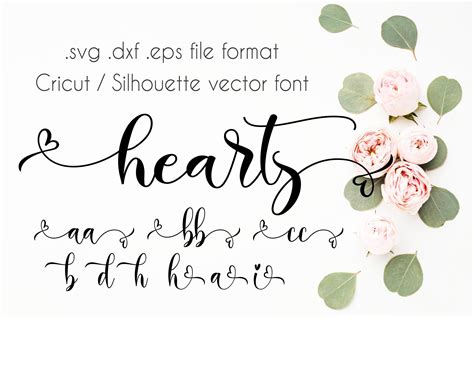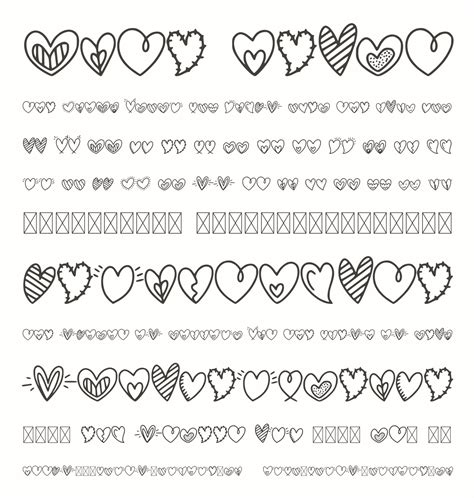
In the digital age, where visual appeal is as important as functionality, the use of cute heart font has become increasingly popular. These fonts are not just about aesthetics; they convey emotions, add a personal touch, and make content more engaging. Whether you're designing a greeting card, creating social media posts, or developing a website, incorporating a cute heart font can elevate your project to new heights.
Understanding Cute Heart Fonts
Cute heart fonts are a type of decorative font that features heart-shaped characters or elements. These fonts are often used to express love, affection, and warmth. They come in various styles, from playful and whimsical to elegant and sophisticated. Understanding the different types of cute heart fonts can help you choose the right one for your project.
Types of Cute Heart Fonts
Cute heart fonts can be categorized into several types based on their design and usage:
- Playful and Whimsical: These fonts are characterized by their lighthearted and fun design. They often feature rounded edges and bright colors, making them perfect for children's projects or casual events.
- Elegant and Sophisticated: These fonts have a more refined and polished look. They are often used for formal occasions like weddings or anniversaries.
- Handwritten: These fonts mimic the look of handwriting, adding a personal and intimate touch to your projects.
- Bold and Eye-Catching: These fonts are designed to stand out. They are often used for headlines or important messages where you want to grab attention.
Popular Cute Heart Fonts
Here are some popular cute heart fonts that you can consider for your next project:
| Font Name | Description | Best For |
|---|---|---|
| Love Story | A playful and whimsical font with heart-shaped characters. | Children's projects, casual events |
| Sweetheart | An elegant and sophisticated font with a romantic feel. | Weddings, anniversaries |
| Handwritten Hearts | A handwritten font with heart-shaped elements. | Personal letters, invitations |
| Bold Hearts | A bold and eye-catching font with prominent heart shapes. | Headlines, important messages |
How to Use Cute Heart Fonts
Using cute heart fonts effectively requires a bit of creativity and understanding of design principles. Here are some tips to help you get started:
Choosing the Right Font
Selecting the right cute heart font depends on the context and purpose of your project. Consider the following factors:
- Audience: Who will be reading or viewing your content? Choose a font that resonates with your audience.
- Purpose: What is the main goal of your project? Whether it's to convey love, celebrate an occasion, or simply add a touch of cuteness, choose a font that aligns with your purpose.
- Style: What is the overall style of your project? Ensure that the font complements the design and enhances the visual appeal.
Pairing Fonts
Cute heart fonts can be paired with other fonts to create a balanced and harmonious design. Here are some tips for pairing fonts:
- Contrast: Pair a cute heart font with a more neutral or simple font to create contrast and balance.
- Complementary Styles: Choose fonts that have complementary styles. For example, pair a playful cute heart font with a more elegant font for a balanced look.
- Readability: Ensure that the paired fonts are easy to read. Avoid using too many different fonts, as this can make your design look cluttered.
Designing with Cute Heart Fonts
When designing with cute heart fonts, keep the following tips in mind:
- Color Scheme: Choose a color scheme that complements the font. Bright and vibrant colors work well with playful fonts, while softer, more muted tones are better for elegant fonts.
- Background: Ensure that the background does not clash with the font. A simple, clean background often works best.
- Size and Spacing: Adjust the size and spacing of the font to ensure readability. Avoid making the font too small or too large, as this can affect the overall design.
💡 Note: Always preview your design on different devices and screen sizes to ensure that the cute heart font looks good everywhere.
Cute Heart Fonts in Digital Media
Cute heart fonts are not just limited to print media; they are also widely used in digital media. Here are some ways to incorporate cute heart fonts into your digital projects:
Social Media Posts
Social media platforms are a great place to use cute heart fonts. They can make your posts stand out and grab attention. Here are some tips for using cute heart fonts on social media:
- Profile Names and Bios: Use a cute heart font for your profile name or bio to add a personal touch.
- Post Captions: Incorporate cute heart fonts in your post captions to make them more engaging.
- Graphics and Images: Create graphics and images with cute heart fonts to enhance their visual appeal.
Websites and Blogs